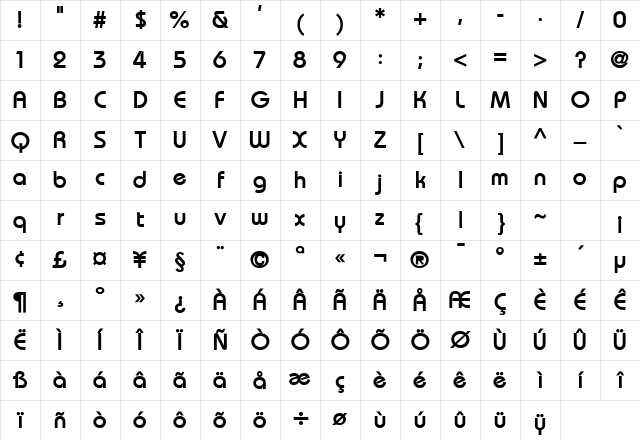
Bimini Bold
Bimini Family
Design Context for Bimini
Bimini is a composed and adaptable typeface that performs quietly and consistently across a wide range of design contexts. Its bold stroke weight gives it real presence on the page.